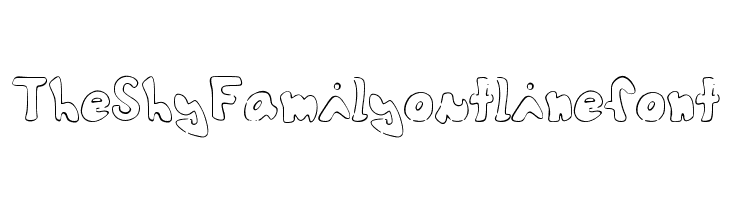
A playful, hand-drawn outline font with a whimsical and friendly style.
A playful, bubble-like outline font with rounded edges and a whimsical style.
A playful, bubble-outline font with an italic slant and rounded characters.